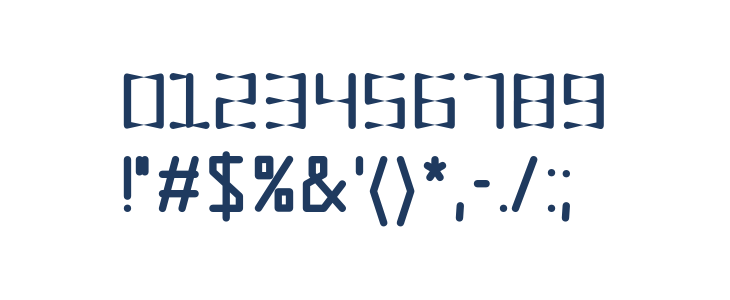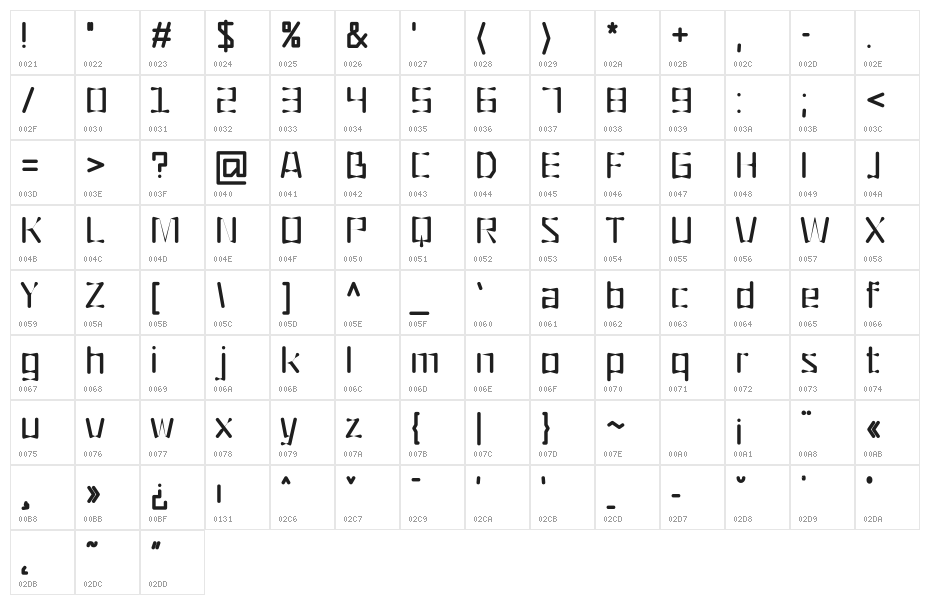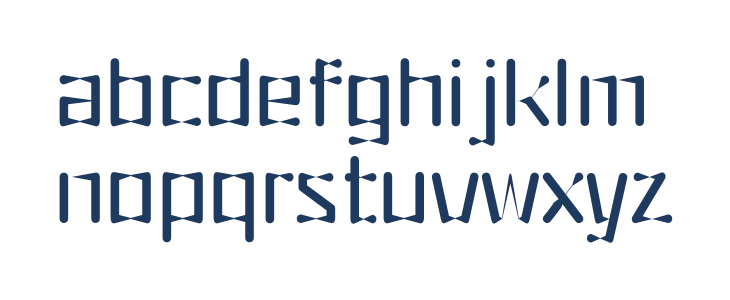
Rocker Font
Rocker Description
This font features a bold and edgy design with angular, geometric shapes that give it a modern and rebellious feel. The uppercase letters are distinct with sharp edges and a slightly condensed form, while the lowercase letters maintain a consistent style with a more streamlined appearance. The numerals are clear and legible, following the same angular theme. Special characters are creatively designed to match the overall aesthetic, making this font suitable for projects that require a strong visual impact.
| Proposed Projects | Ideal for music album covers, posters, branding for edgy or alternative products, and any design that requires a bold statement. |